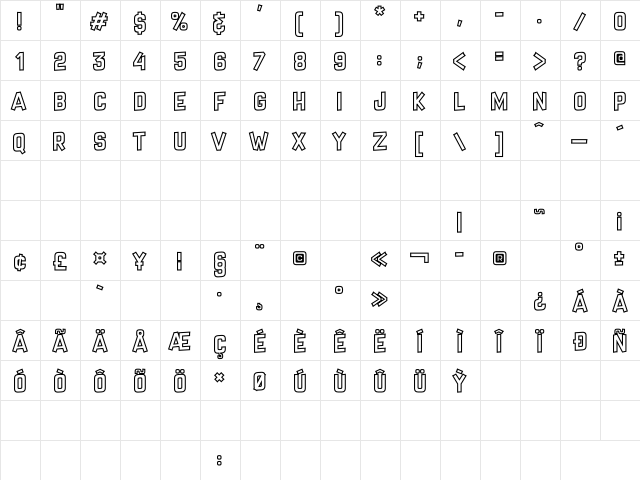
Crazy Sixties Hollow Regular
Design Context for Crazy Sixties Hollow Typeface
Crazy Sixties Hollow is a composed and adaptable typeface that performs quietly and consistently across a wide range of design contexts.